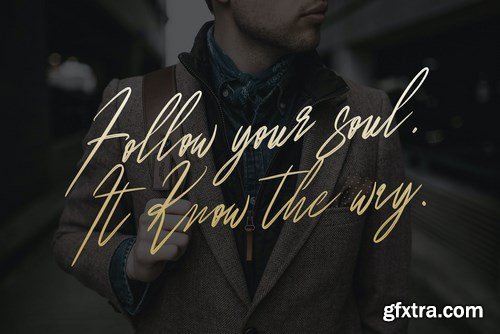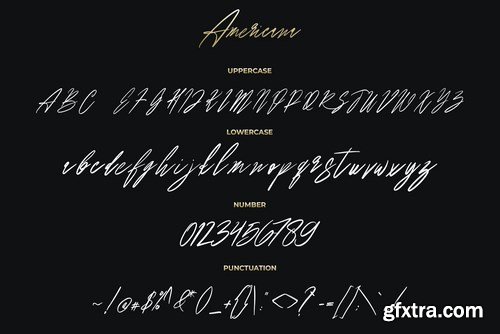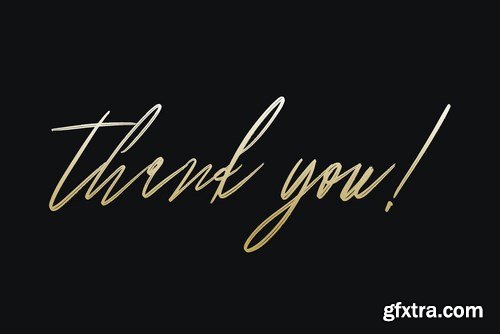
Introducing Americana - a sweet, upright calligraphy font with a charming signature feel. Suitable for use in title design as well as apparel, invitations, books tittle, stationery design, quotes, branding, logos, greeting card, t-shirt, packaging design, poster and more.